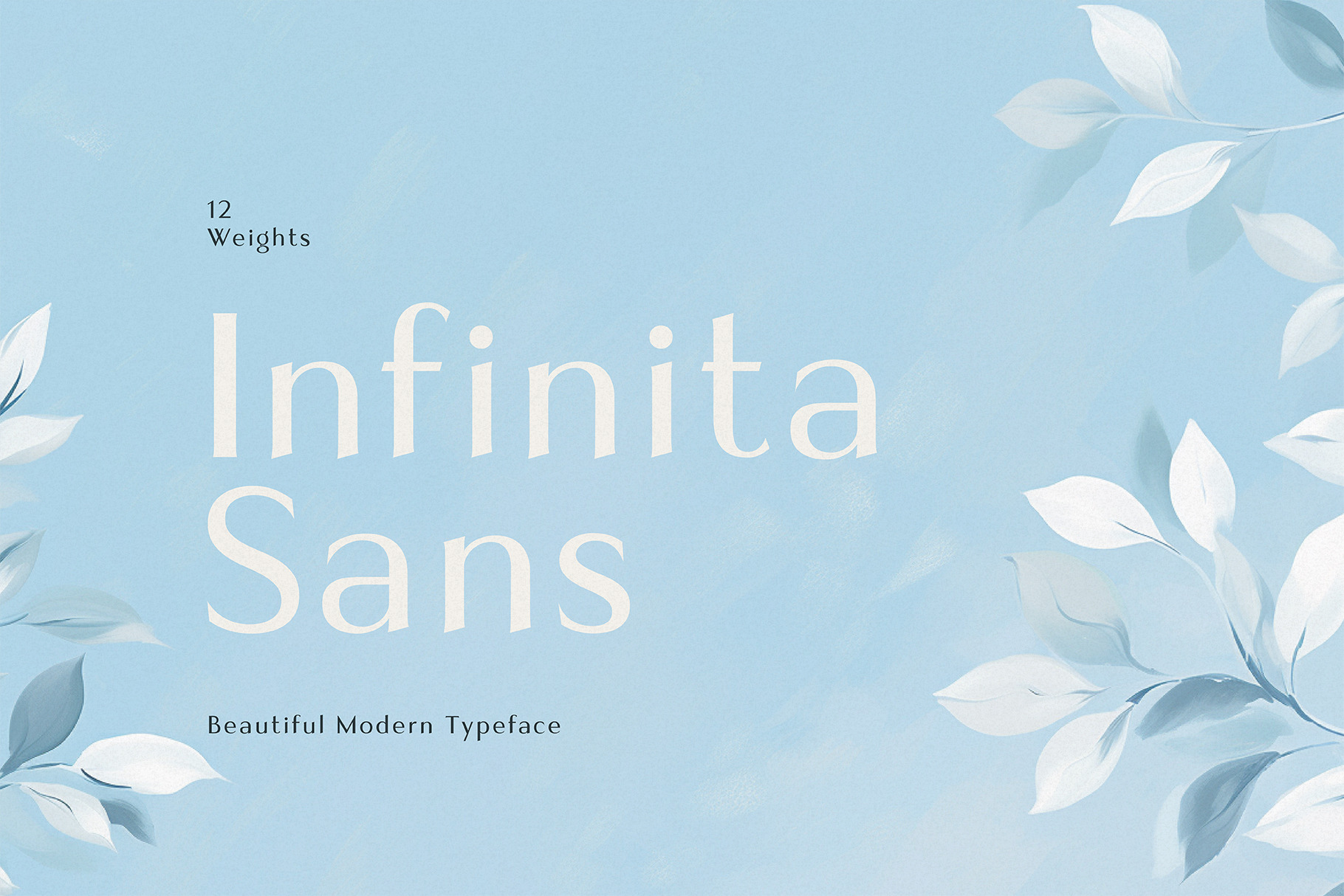
Infinita Sans - Elegant Typeface
Prepare to embark on a design journey like no other, where sophistication takes center stage and innovation flows effortlessly. Behold, Infinita Sans, the embodiment of refined typography! This exquisite elegant typeface is your ticket to unlocking a world of limitless creativity, where each stroke of the pen becomes a work of art.
Infinita Sans isn't just a typeface; it's a proclamation of elegance, precision, and boundless creativity. It's your secret weapon to craft designs that are visually stunning and eternally memorable. Elevate your projects, mesmerize your audience, and etch your signature with Infinita Sans - the Elegant Typeface that sets new benchmarks in design perfection.